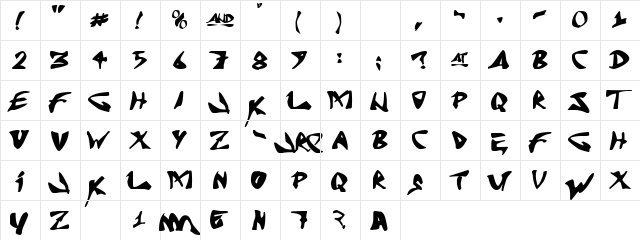
J Random C Regular
Design Context for J Random C Typeface
J Random C is a composed and adaptable typeface that performs quietly and consistently across a wide range of design contexts.